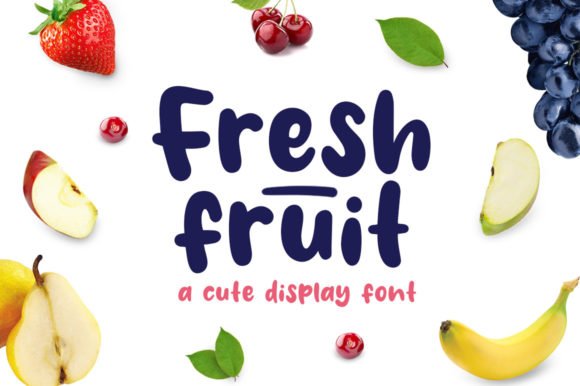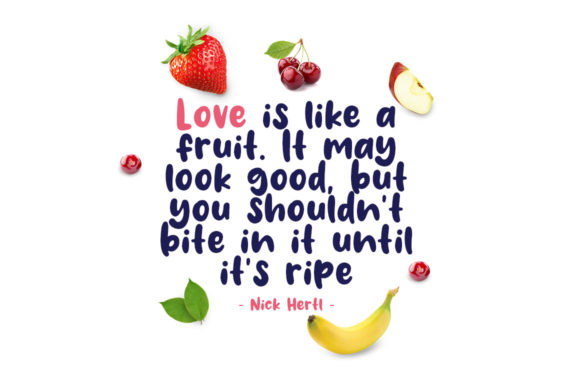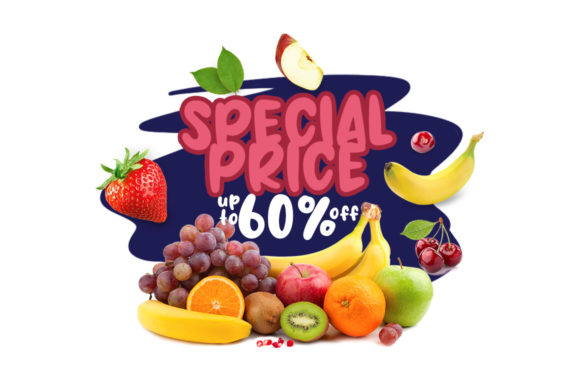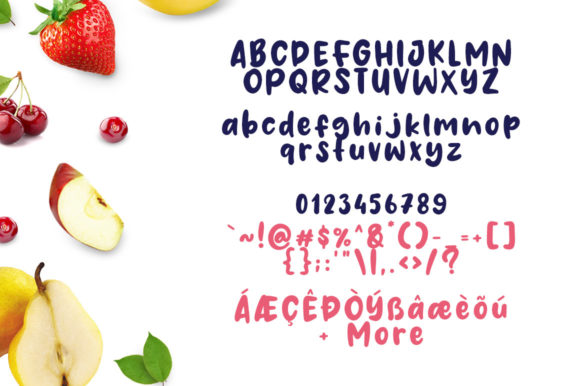
Introducing the Perfect Canvas for Your Creativity: Fresh Fruit Font
Remember the moment when you were a kid, sitting at your desk, staring at a blank piece of paper, waiting for inspiration to strike? The possibilities seemed endless, and the excitement was palpable. As designers, we’ve all been there – searching for that one element that brings our ideas to life. For those looking to add a playful twist to their creations, the Fresh Fruit Font is here to make your designs pop!
This fun and cool display font is designed to bring a smile to the faces of your audience. Whether you’re working on a cartoon-related project, a children’s game, or simply need to add a whimsical touch to your design, the Fresh Fruit Font is the perfect choice. Its versatility and charm make it a valuable asset for designers looking to create engaging and memorable visuals.
Fresh Fruit Font Key Features
- Unique Characteristics: Features a playful, handwritten style with subtle texture and imperfections, perfect for creating a fresh and natural look
- Font Weight: Includes 6 font weights, from Light to Bold, for added versatility
- Kerning and Ligatures: Includes advanced kerning and ligature features for improved text readability and aesthetic appeal
Designer Review: Fresh Fruit Font
Overall, I was excited to dive into the Fresh Fruit Font, but my expectations were mixed. Let’s start with what works well ✨. The font is playful and vibrant, making it perfect for kid’s menus, food blogs, or any project that needs a fun twist. The designers have done an excellent job in creating a cohesive set of characters that are both visually appealing and functional.
- The font is highly legible, even at smaller sizes, making it suitable for various design applications.
- The character set includes a wide range of symbols and punctuation marks, ensuring that it’s versatile and easy to use.
- The font’s weight and style variations add depth and visual interest to the design.
However, there are some limitations ⚠️ that prevent me from giving it a full 5-star rating. The font’s bold and italic styles are not as well-executed as the regular weight, which can make the design look inconsistent. Additionally, the font’s kerning could be improved, especially for certain character combinations.
Overall, I would recommend the Fresh Fruit Font for projects that require a fun and playful touch. While it’s not perfect, its strengths outweigh its weaknesses, and with some careful design choices, it can be a great addition to any project.
For the best results, use the Fresh Fruit Font in bold or italic styles to add emphasis to your text.
Use the Fresh Fruit Font to create eye-catching titles, headings, and captions.
The Fresh Fruit Font is perfect for:
Food and beverage branding
Health and wellness marketing
Children’s educational materials
Summer-themed designs and promotions
Alternatives to Fresh Fruit Font
Fresh Fruit Font is a playful and whimsical font, but sometimes designers need more options. Here are a few alternatives to consider:
Great Vibes is a fun, handwritten font that is perfect for creating a carefree and relaxed atmosphere. It’s great for use in advertisements, social media graphics, and other promotional materials. Unlike Fresh Fruit Font, Great Vibes has a more casual feel and is often used in a more modern context.
Pacifico is a beautiful, elegant font that is reminiscent of a tropical paradise. It’s great for use in branding, logos, and other design elements where a sense of luxury and sophistication is desired. Unlike Fresh Fruit Font, Pacifico has a more refined feel and is often used in a more high-end context.
Carolyna Pro is a modern, elegant font that is perfect for use in fashion, beauty, and lifestyle branding. It’s great for creating a sense of glamour and sophistication, and is often used in high-end design projects. Unlike Fresh Fruit Font, Carolyna Pro has a more polished feel and is often used in a more contemporary context.